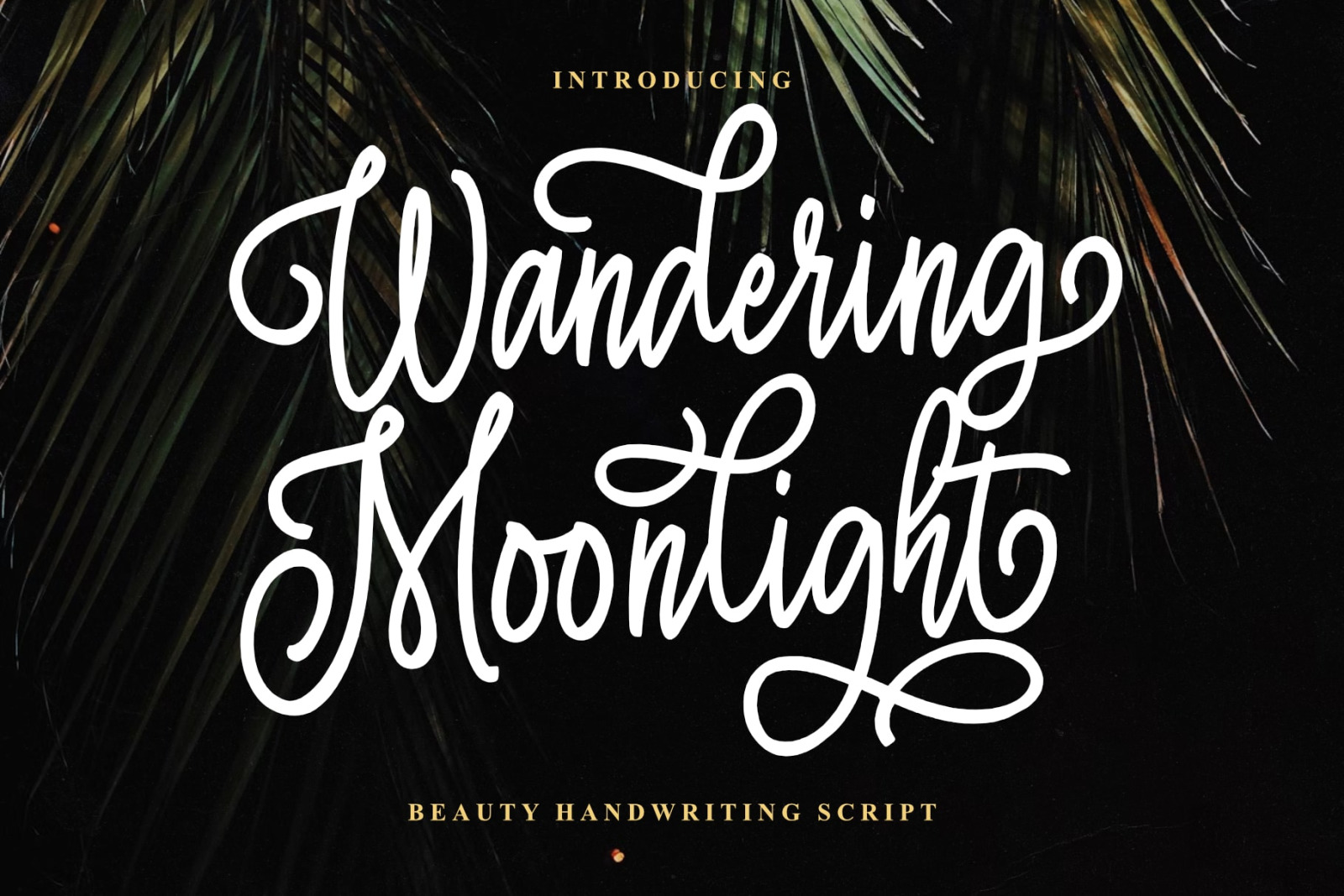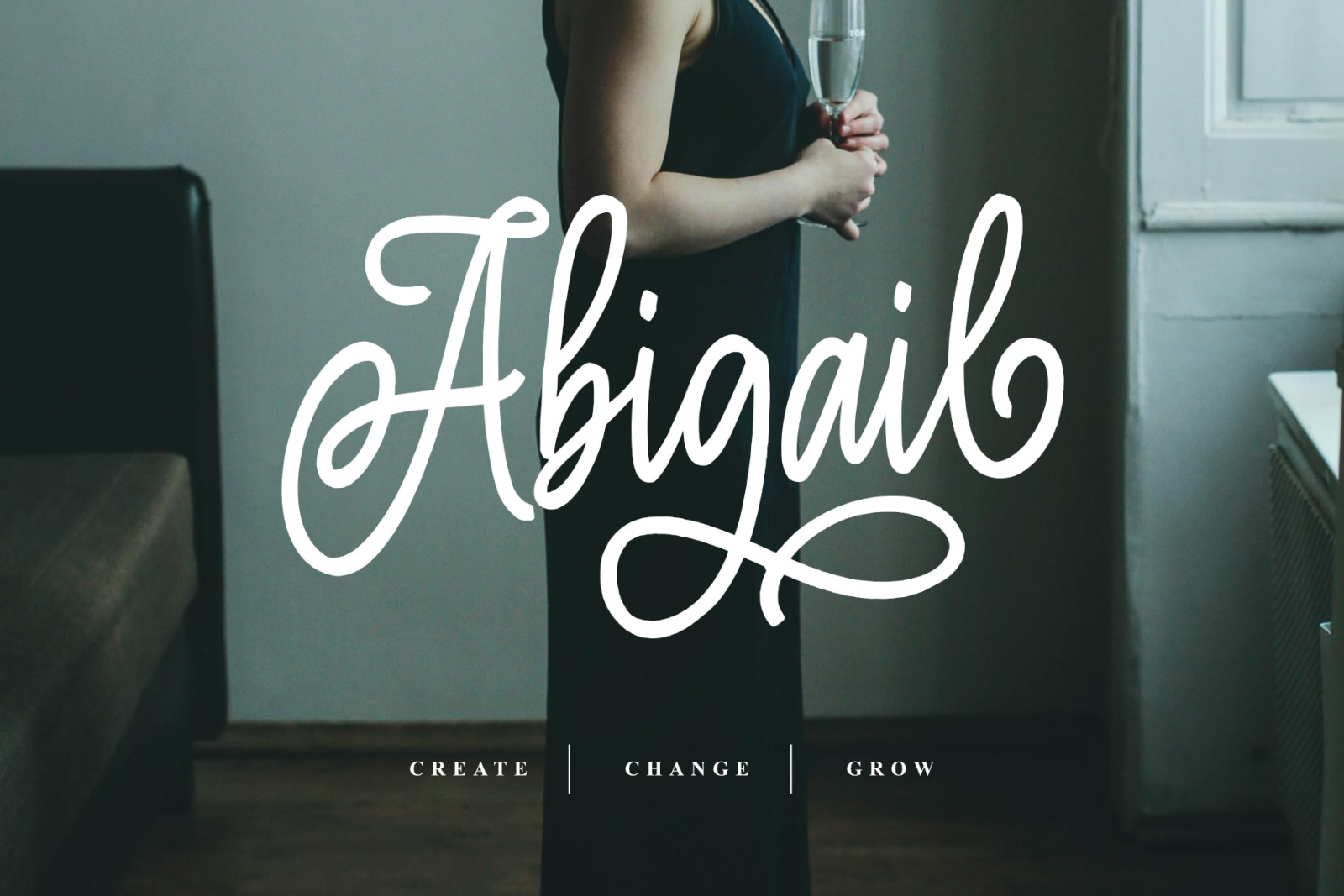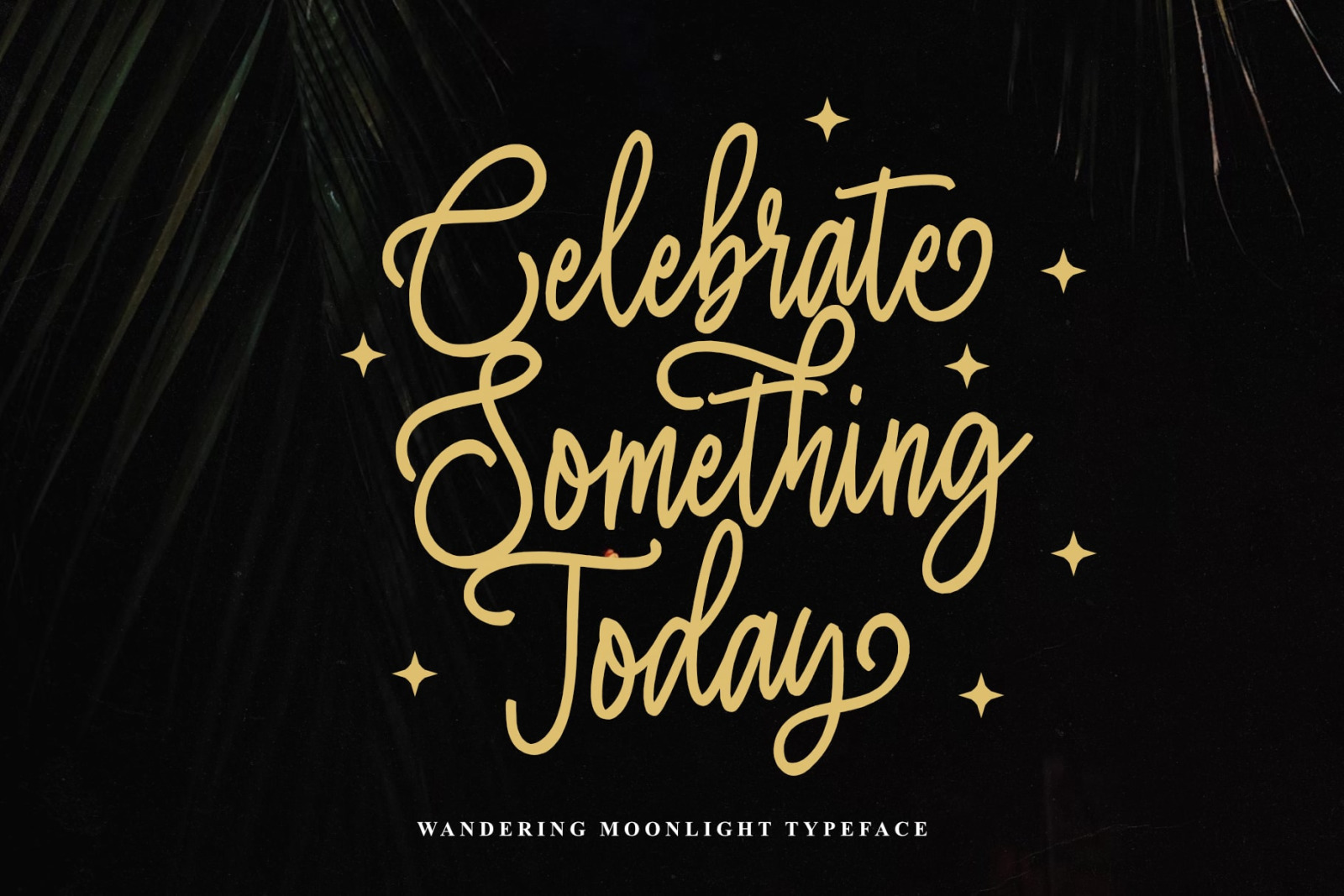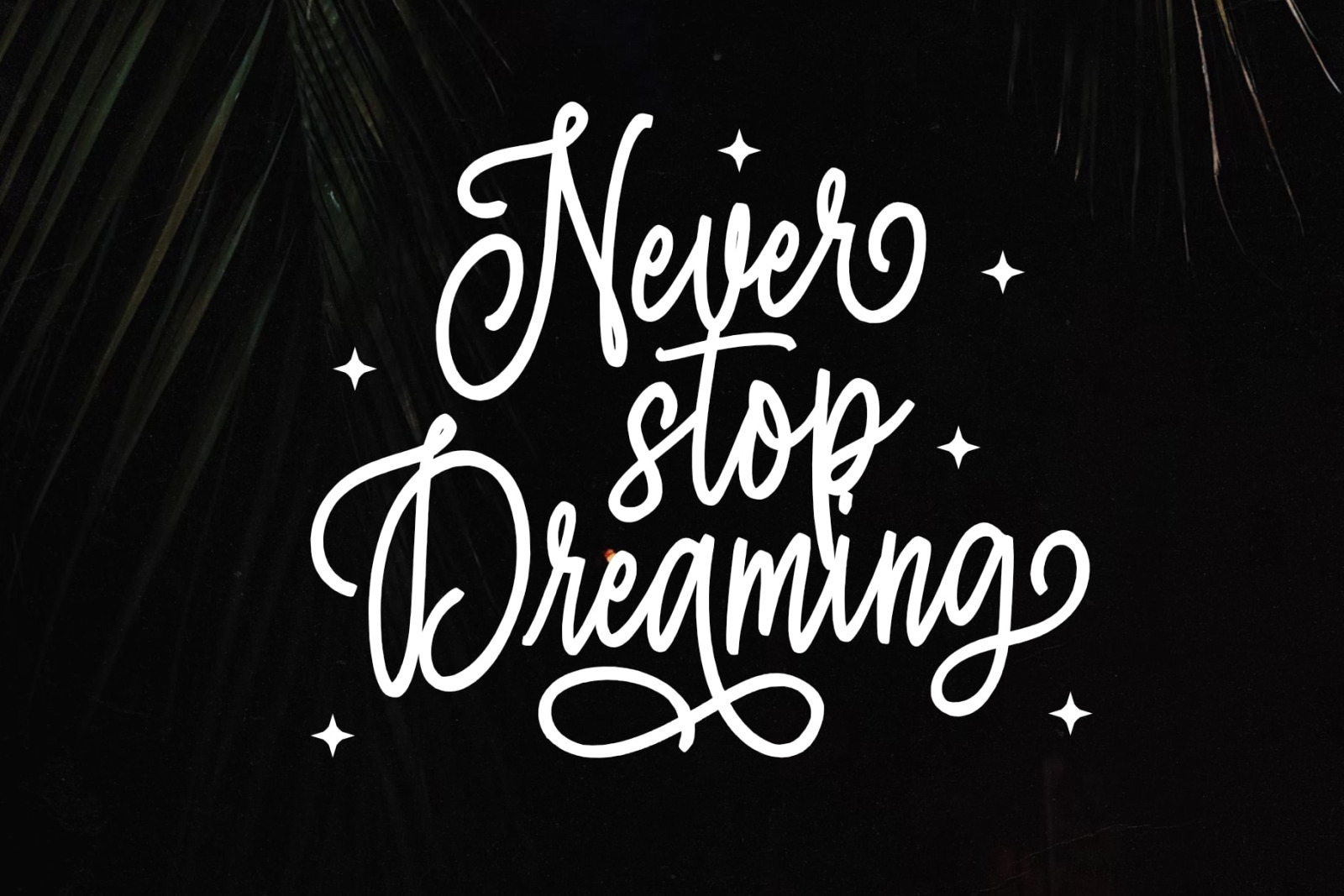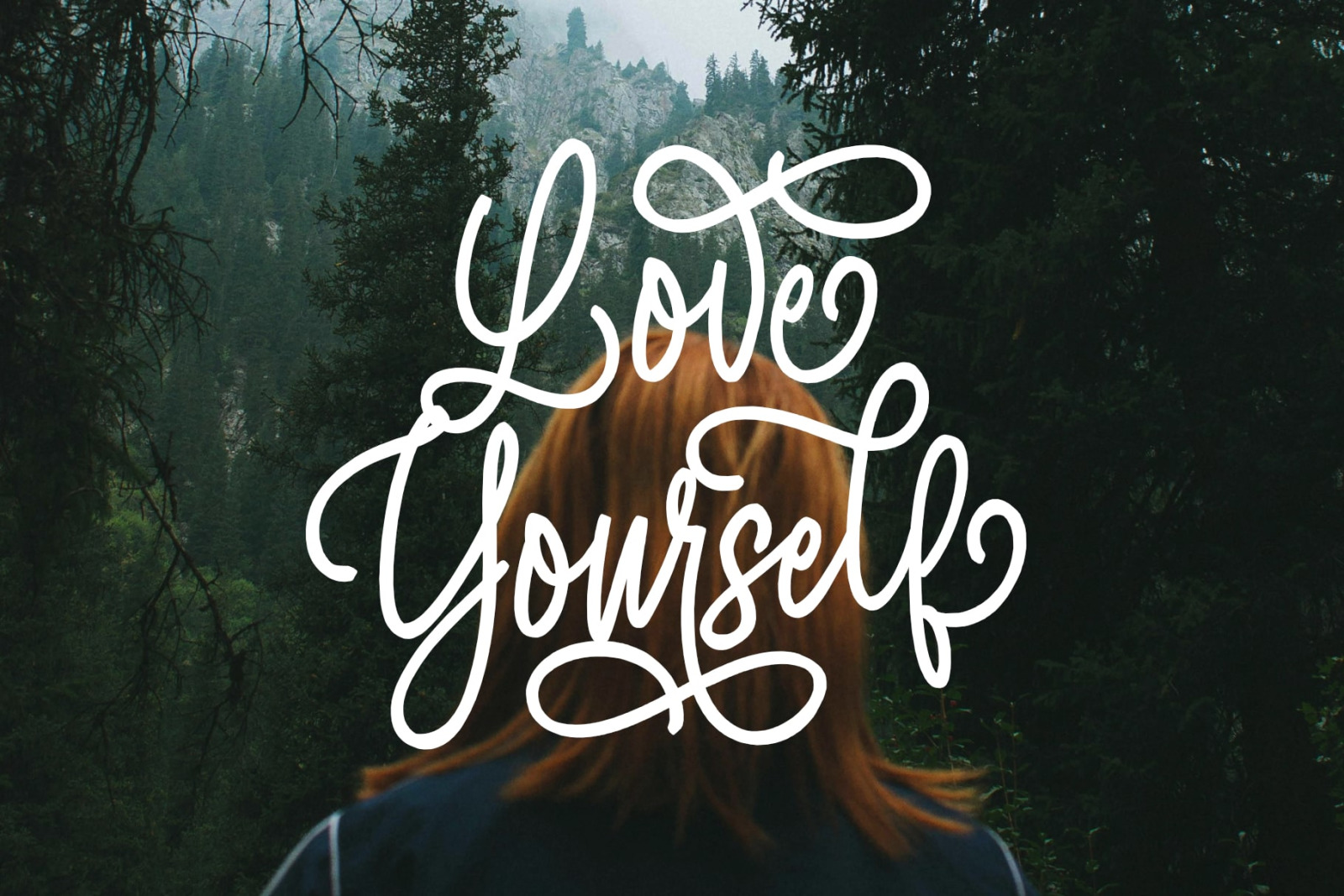
Wandering Moonlight Font
Wandering Moonlight is an exquisite handwriting script typeface that captures the poetic beauty of soft moonlit nights. Its graceful, flowing strokes and delicate curves create a sense of romantic elegance and fluidity, making it ideal for projects that call for a touch of personal charm and refinement. This font feels as if it's been carefully handwritten, offering a timeless, natural look that elevates any design.